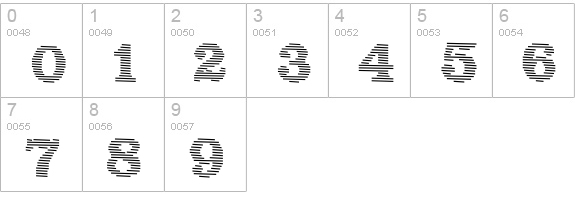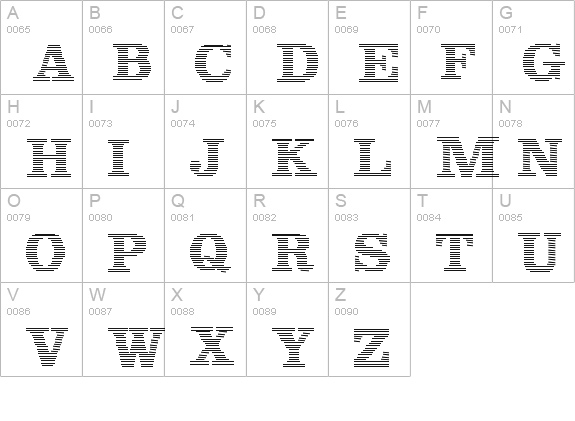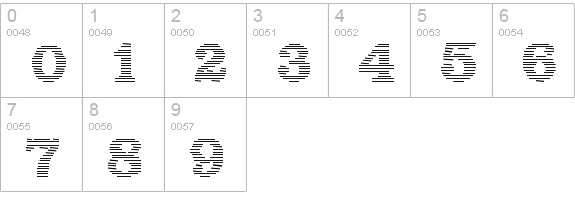
Blue lines Font Details
Introducing Blue Lines font, a unique and modern typeface that combines elegance with a touch of playfulness. This font features intricate blue lines that add a dynamic and stylish element to any project. Whether you're designing a logo, branding materials, or promotional graphics, Blue Lines font is sure to make a statement. What's even better is that Blue Lines font is completely free to download at FontsMarket.com. Simply head to the website and grab this eye-catching typeface for your design arsenal. With its bold and captivating appearance, Blue Lines font is perfect for adding a pop of creativity to your projects. Don't miss out on this exciting opportunity to enhance your designs with this free and striking font.